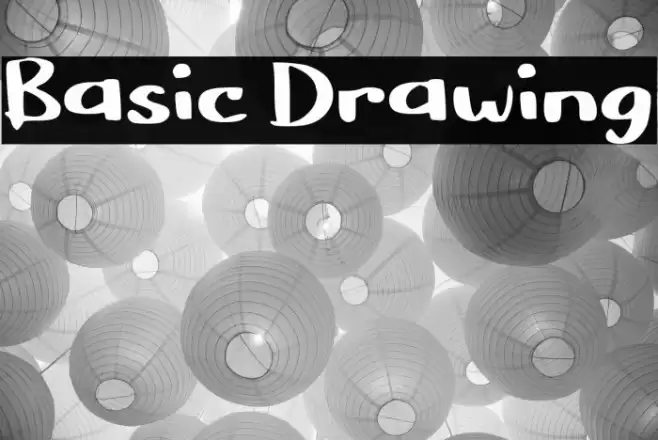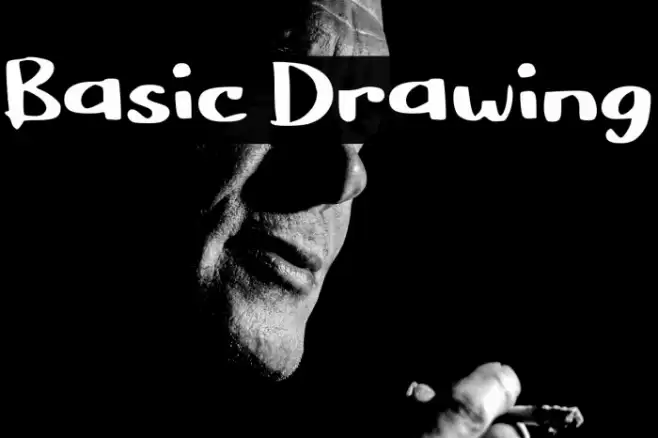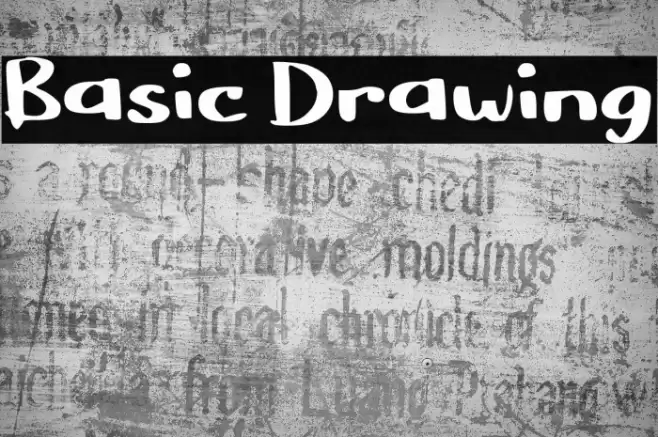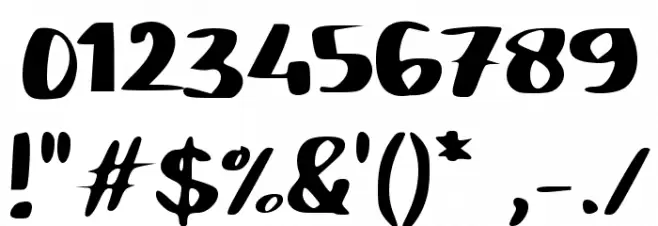
Basic Drawing Font
Basic Drawing Description
This font features a bold and playful handwritten style with a dynamic and energetic appearance. The characters are slightly irregular, giving it a casual and informal feel. The uppercase letters are bold and prominent, while the lowercase letters maintain a consistent flow with rounded edges. The numbers are equally bold, matching the overall style of the alphabet. Special characters are creatively designed, adding to the font's unique personality. This font is ideal for projects that require a fun and lively touch, such as children's books, posters, or playful branding.
A bold, playful handwritten font with dynamic and energetic characters from Uncategorized fonts.
- Proposed Projects: Ideal for children's books, playful branding, posters, and creative projects.
- Overall Style: Playful, Casual